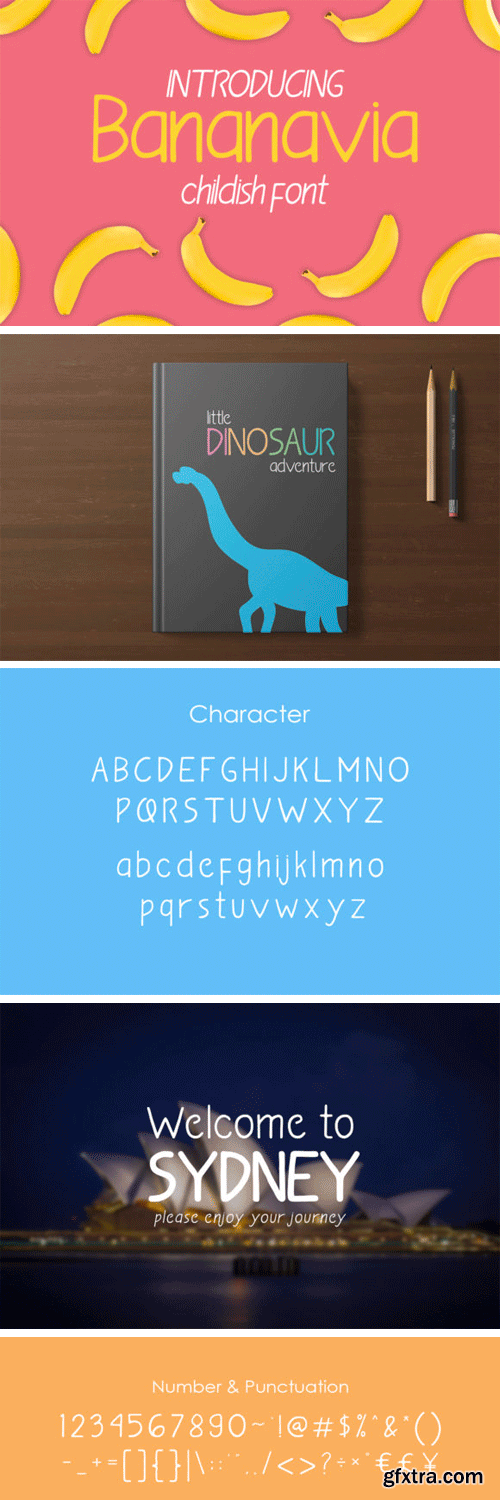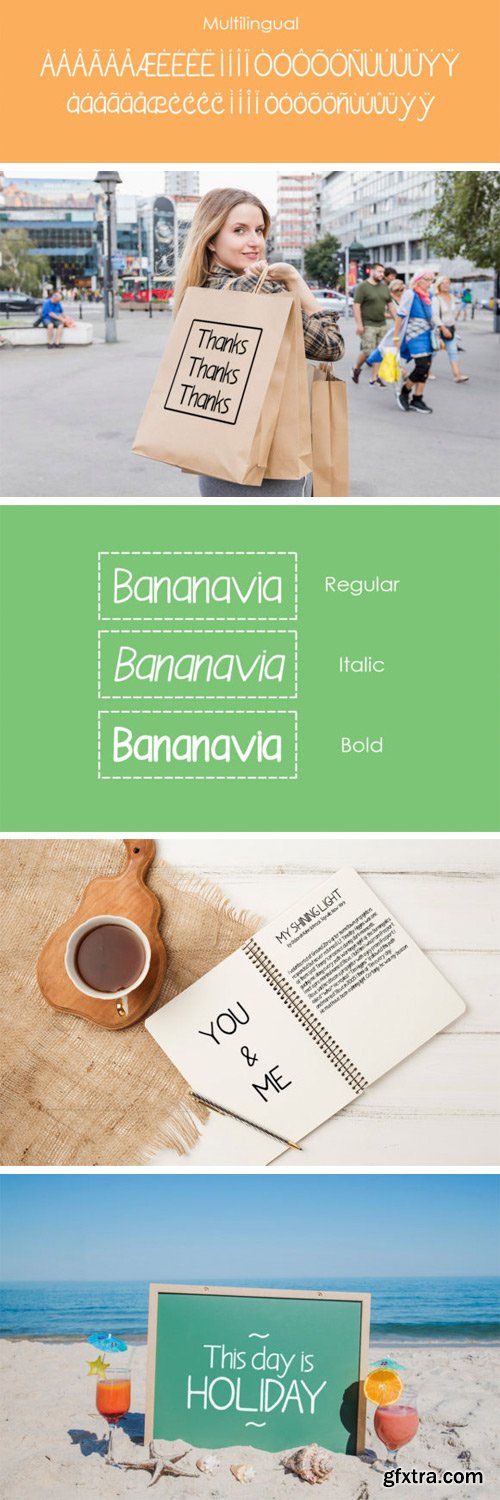
Bananavia Font
Freaky, funky, cool: Bananavia is a one-of-a-kind sans serif font that will turn any design project into a stand out with its whimsical charm!